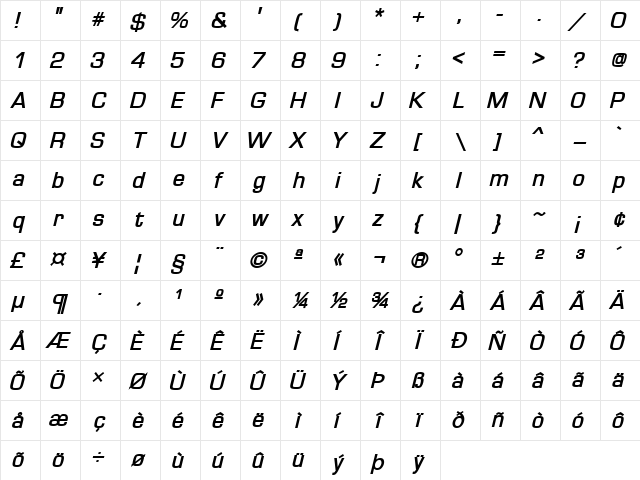
Waukegan LDO Bold Oblique
Design Context for Waukegan LDO Typeface
Waukegan LDO is a composed and adaptable typeface that performs quietly and consistently across a wide range of design contexts. The slanted form adds forward momentum and visual energy. Its bold stroke weight gives it real presence on the page.